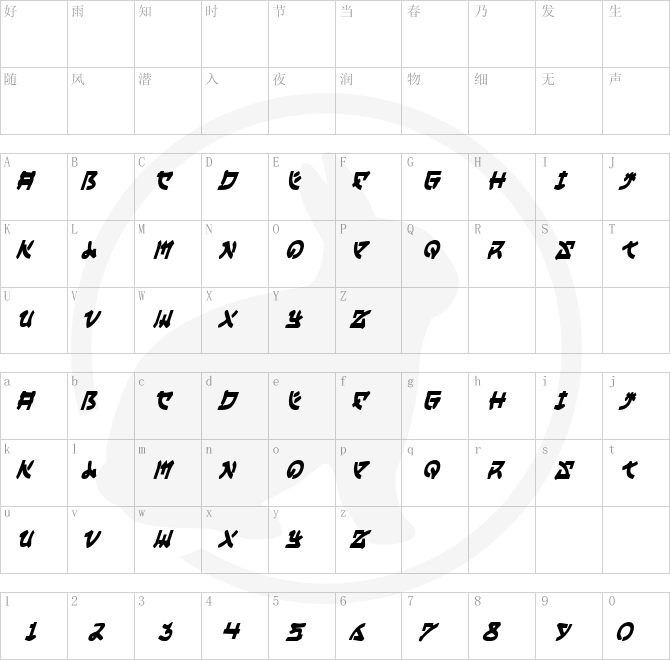
- Font Name:Yama Moto Condensed Italic
Yama-Moto-Condensed-Italic.ttf is a very beautiful artistic font, Yama-Moto-Condensed-Italic.ttf is widely used in the design and printing of various books and pictures,Yama-Moto-Condensed-Italic.ttf has a strong visual impact,Yama-Moto-Condensed-Italic.ttf is a commonly used font in newspapers, magazines and books, and is used in posters, e-commerce Poster design, store design, logo design, font design and other fields.Yama-Moto-Condensed-Italic.